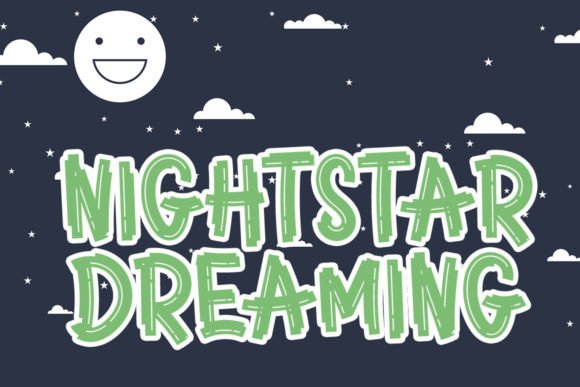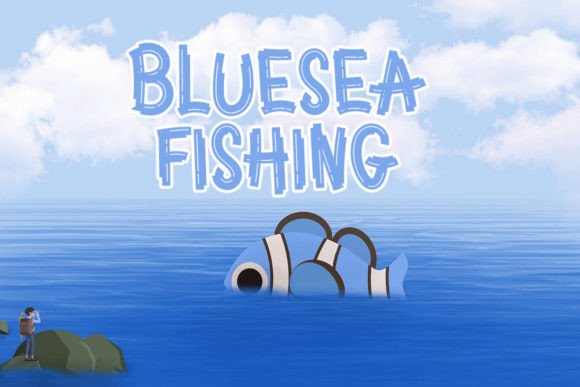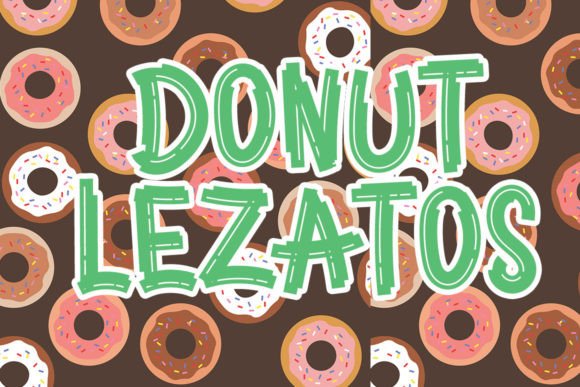
The Joy of Creating with Drawing Font
Have you ever sat at your desk, staring at a blank piece of paper, feeling like the perfect design is just out of reach? It’s a moment we’ve all experienced as creatives – the frustration of trying to bring an idea to life. But what if we told you that the perfect font was just a click away?
Meet Drawing Font, a beautiful and elegant typeface that’s perfect for any project. From formal invitations to informal social media graphics, Drawing Font adds a touch of joy and whimsy to your designs. Its fresh, clean lines make it a versatile choice for designers looking to add a little extra something to their work.
Drawing Font Key Features
- Unique Characteristics: Features a hand-drawn design with intricate details and subtle imperfections, giving it a personal touch.
- Font Styles: Offers a range of font styles, including regular, bold, italic, and bold italic, to suit various design needs.
- Multi-Lingual Support: Supports multiple languages, including Latin, Cyrillic, and Greek scripts.
Review of Drawing Font
I’ve had the chance to work with the Drawing Font, and here’s my honest review.
- ✨ Unique aesthetic: The font has a distinct, hand-drawn feel that’s perfect for creative projects.
- ✨ Wide range of styles: The font family includes various styles, from casual to formal, making it suitable for different applications.
- ✨ Good legibility: The font is easy to read, even at smaller font sizes, which is essential for digital projects.
- ⚠️ Limited support for non-English characters: The font may not render correctly for languages that use non-Latin scripts.
- ⚠️ Some letterforms may be difficult to read: The font’s unique design can make certain letters or combinations of letters challenging to decipher.
While the Drawing Font has its limitations, I appreciate its unique aesthetic and versatility. It’s perfect for projects where you want to add a touch of creativity and whimsy. However, it may not be the best choice for formal or technical documents, or for projects that require support for non-English characters.
Alternatives to Drawing Font for Designers
1. Brush Script
Brush Script is a calligraphic font that mimics the look of handwritten text. It is ideal for use in titles, headings, and other areas where a touch of elegance is desired. Compared to Drawing Font, Brush Script has a more organic and free-flowing feel, making it suitable for projects that require a more artistic approach.
Great Vibes is a handwritten font that is perfect for creating a casual and relaxed atmosphere. It is suitable for use in headings, titles, and body text where a friendly and approachable tone is desired. Unlike Drawing Font, Great Vibes has a more playful and spontaneous feel, making it ideal for projects that require a sense of fun and adventure.
Alex Brush is a beautiful, elegant font that is inspired by traditional calligraphy. It is ideal for use in titles, headings, and other areas where a touch of sophistication is desired. Compared to Drawing Font, Alex Brush has a more refined and polished feel, making it suitable for projects that require a sense of luxury and high-end quality.
4. Pacifico
Pacifico is a beautiful, handwritten font that is perfect for creating a warm and inviting atmosphere. It is suitable for use in headings, titles, and body text where a friendly and approachable tone is desired. Unlike Drawing Font, Pacifico has a more relaxed and casual feel, making it ideal for projects that require a sense of calm and serenity.